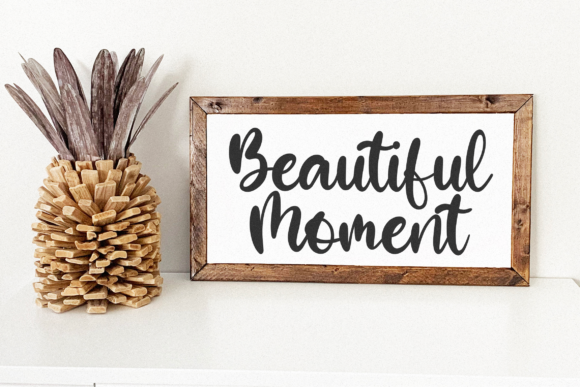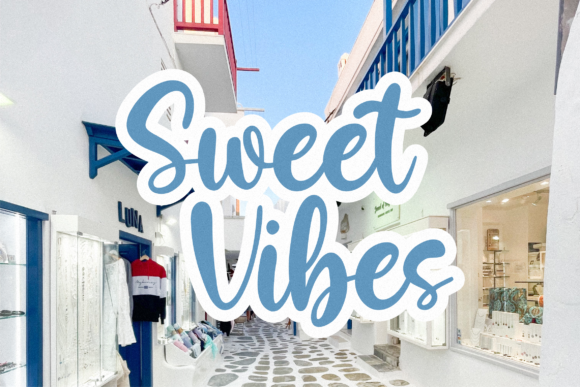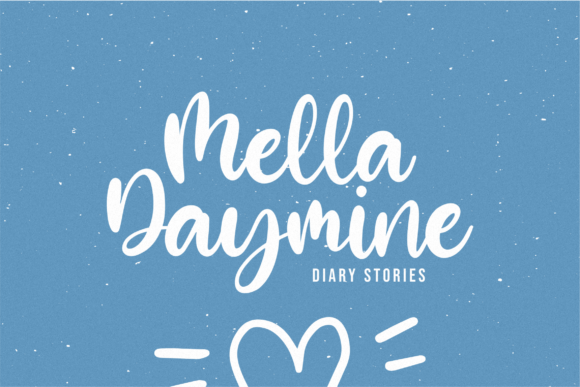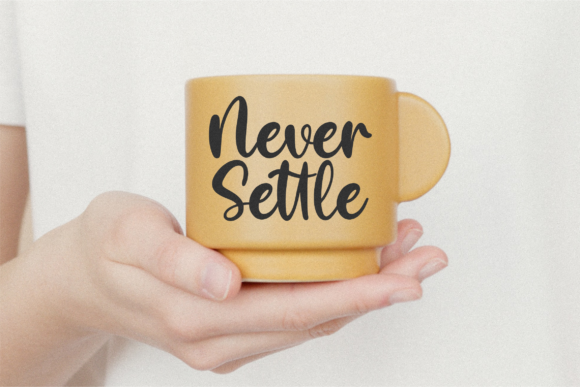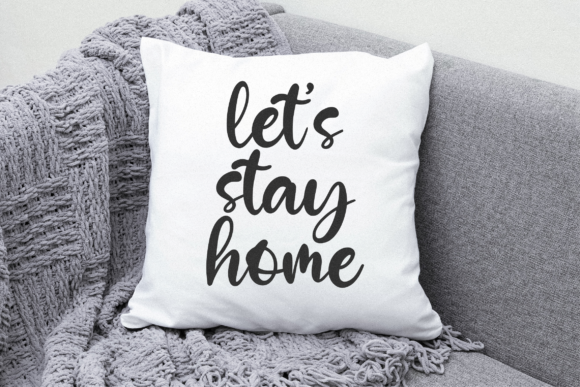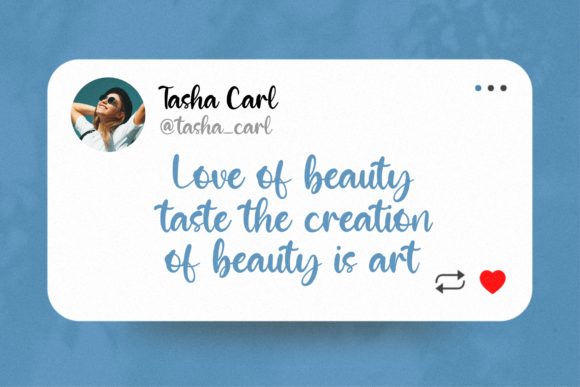
Introducing Blue Elfira Font: The Sweet and Delicate Handwritten Font for Romantic Designs
Are you a designer or crafter looking for a font that can add a touch of romance and personality to your designs? Look no further than Blue Elfira Font, a sweet and delicate handwritten font that’s perfect for creating beautiful wedding invitations, cards, and other designs that require a personal touch.
What Makes Blue Elfira Font So Special?
Blue Elfira Font is a unique and charming handwritten font that’s been designed to bring a sense of joy and elegance to your designs. Its dainty and delicate strokes make it ideal for creating romantic and feminine designs that will capture the hearts of your audience. Whether you’re designing wedding invitations, greeting cards, or other paper crafts, Blue Elfira Font is the perfect choice.
Key Features of Blue Elfira Font
- Sweet and delicate handwritten font: Blue Elfira Font is a beautifully crafted handwritten font that’s perfect for creating romantic and personalized designs.
- Dainty and joyful: The font’s dainty and joyful strokes make it ideal for creating designs that require a touch of elegance and sophistication.
- Perfect for wedding invitations and cards: Blue Elfira Font is specifically designed for creating beautiful wedding invitations, cards, and other paper crafts that require a romantic touch.
- Easy to read and use: Despite its delicate nature, Blue Elfira Font is easy to read and use, making it perfect for designers and crafters of all skill levels.
How to Use Blue Elfira Font in Your Designs
Using Blue Elfira Font in your designs is easy and straightforward. Here are a few tips to get you started:
- Pair it with other fonts: Blue Elfira Font pairs perfectly with other fonts, such as serif and sans-serif fonts, to create beautiful and unique designs.
- Use it for headings and titles: The font’s delicate nature makes it perfect for use as headings and titles in your designs.
- Add it to your digital papers: Blue Elfira Font can be added to your digital papers to create beautiful and romantic designs that will stand out from the crowd.
Why Designers and Crafters Love Blue Elfira Font
Designers and crafters love Blue Elfira Font for many reasons. Here are a few:
- Unique and charming: Blue Elfira Font is a unique and charming font that’s sure to add a touch of personality to your designs.
- Versatile: Blue Elfira Font can be used in a variety of designs, from wedding invitations and cards to digital papers and more.
In conclusion, Blue Elfira Font is a sweet and delicate handwritten font that’s perfect for designers and crafters looking to add a touch of romance and personality to their designs. Its dainty and joyful strokes make it ideal for creating beautiful wedding invitations, cards, and other paper crafts. With its ease of use and versatility, Blue Elfira Font is a must-have font for any designer or crafter looking to create romantic and personalized designs.